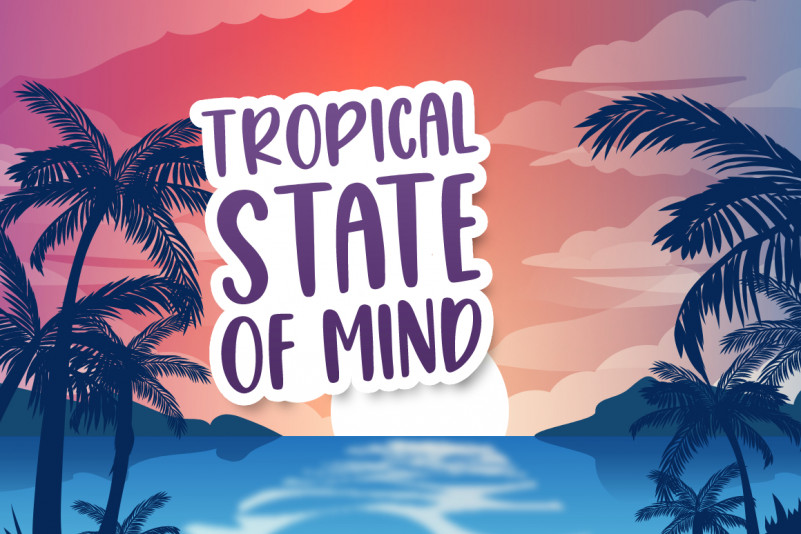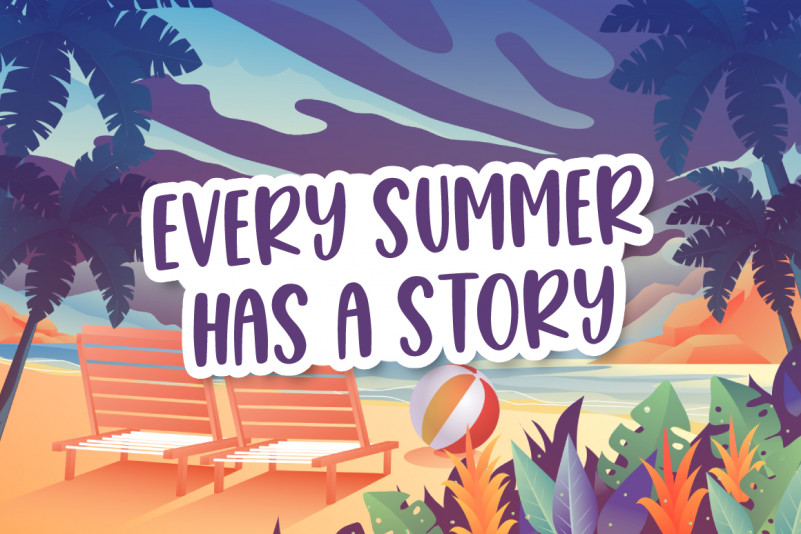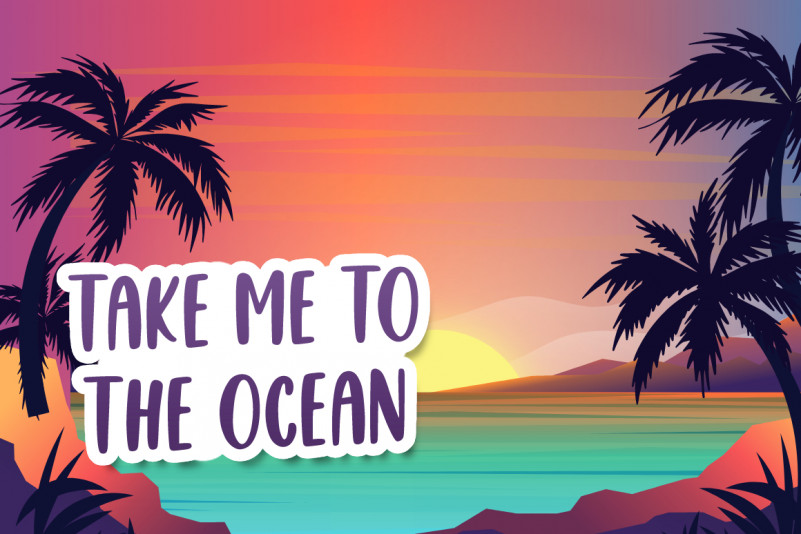
Summer in California Font
Summer in California Display Font
This is a handwritten bold and tall font with all caps characters. Very suitable for web, logos, branding, T-Shirt, kids design, craft design, quotes, stationery, quotes, and much more!